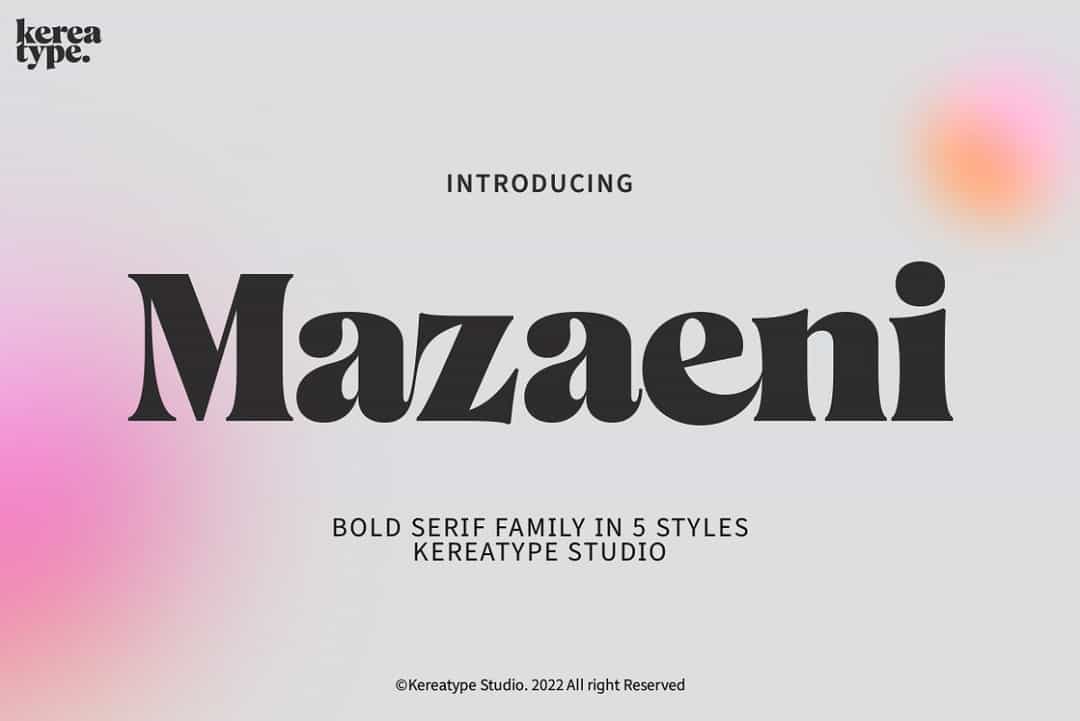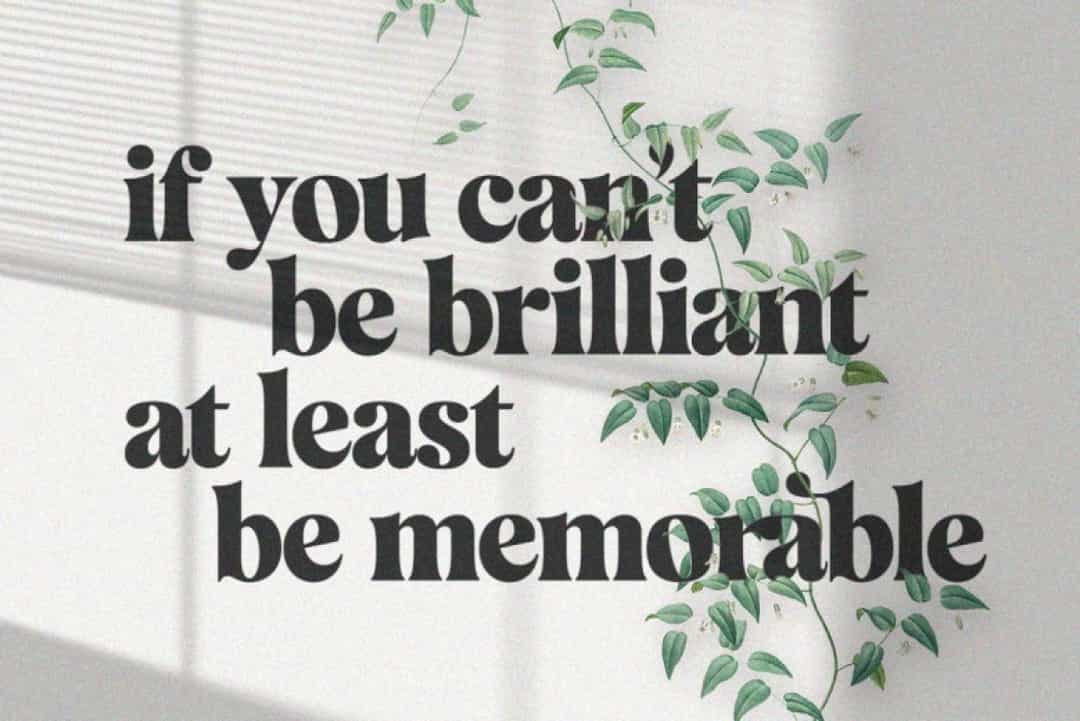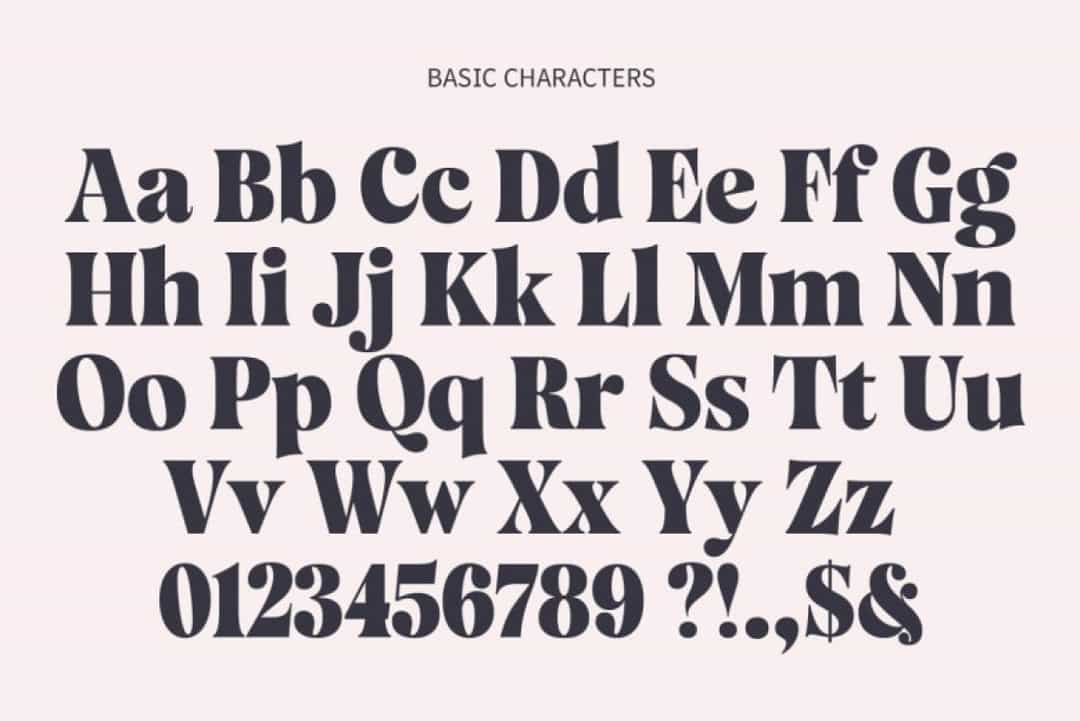
Mazaeni can be described as an elegant yet simple serif typeface family ranging from Regular 5 Weight to Extra Black that is inspired by something elegant yet accessible and flexible. From posters, logotypes, editorial usage to ligatures which can be combined with other ligatures, OpenType alternatives and much more; Mazaeni supports a broad array of languages, features such as OpenType alternatives as well as many others that add another level of flexibility and usability to every application.